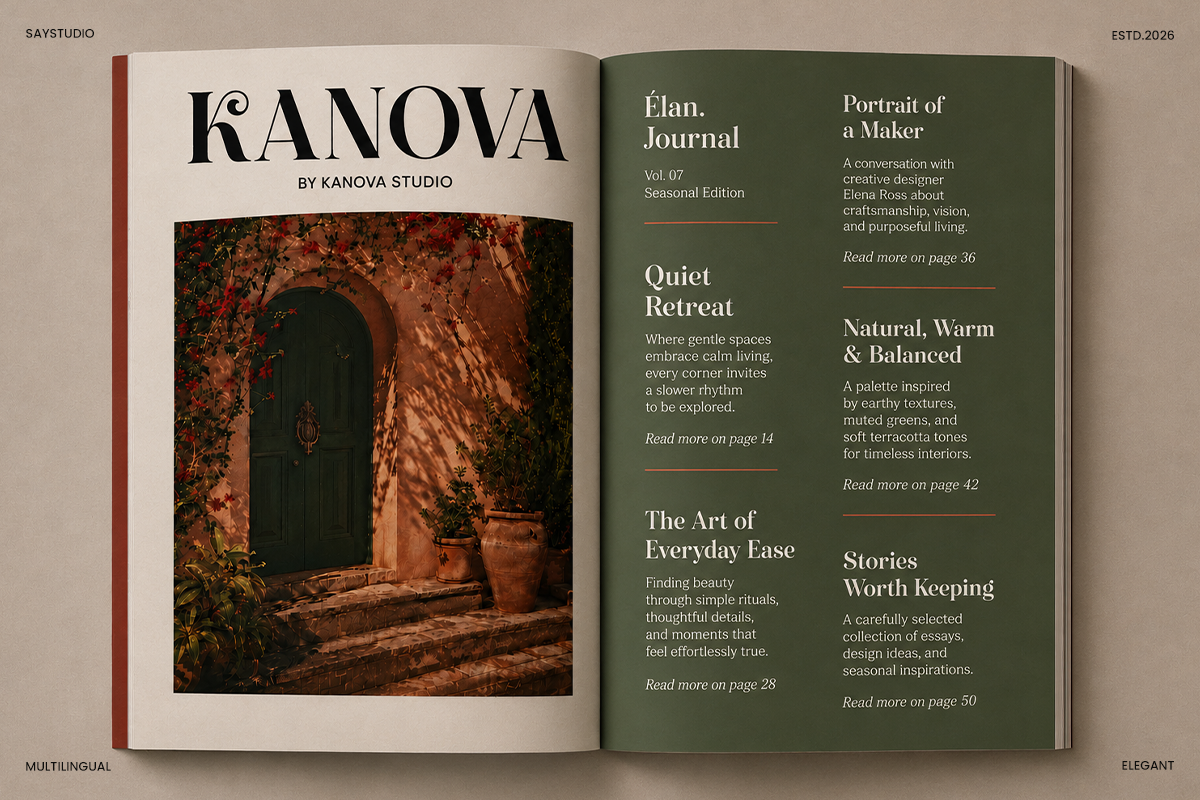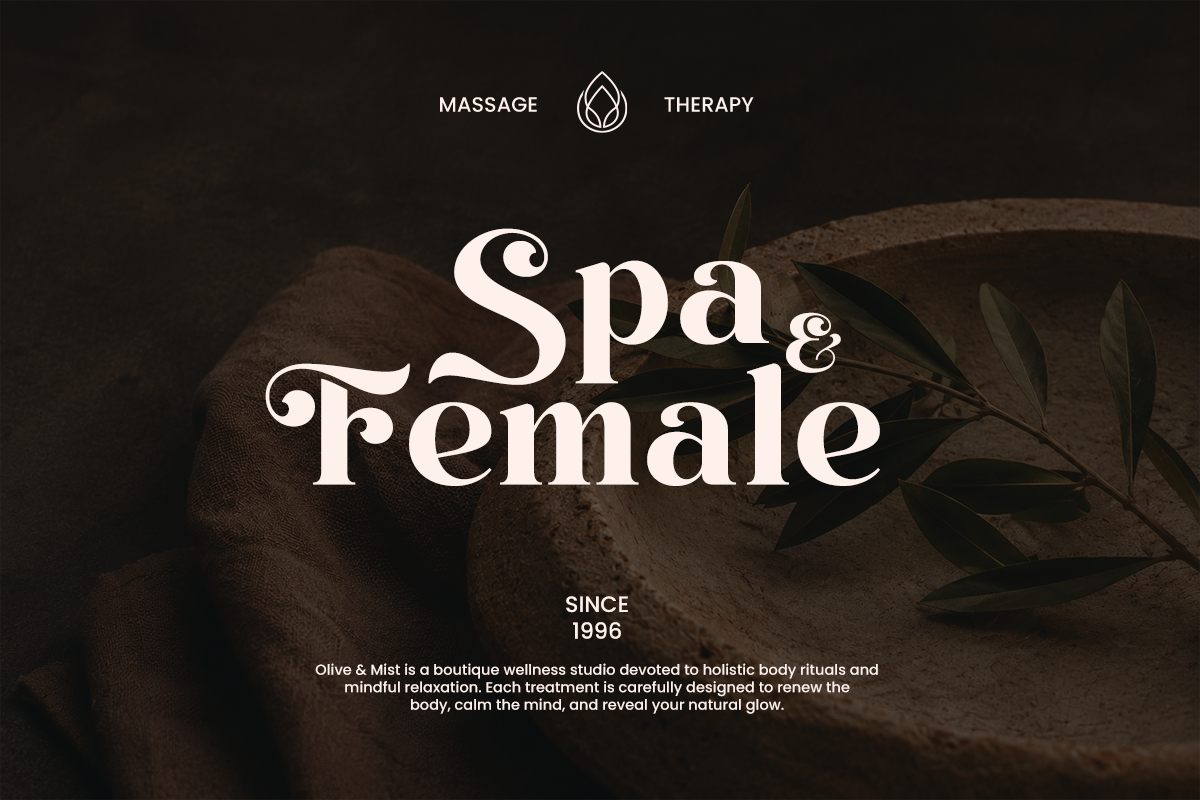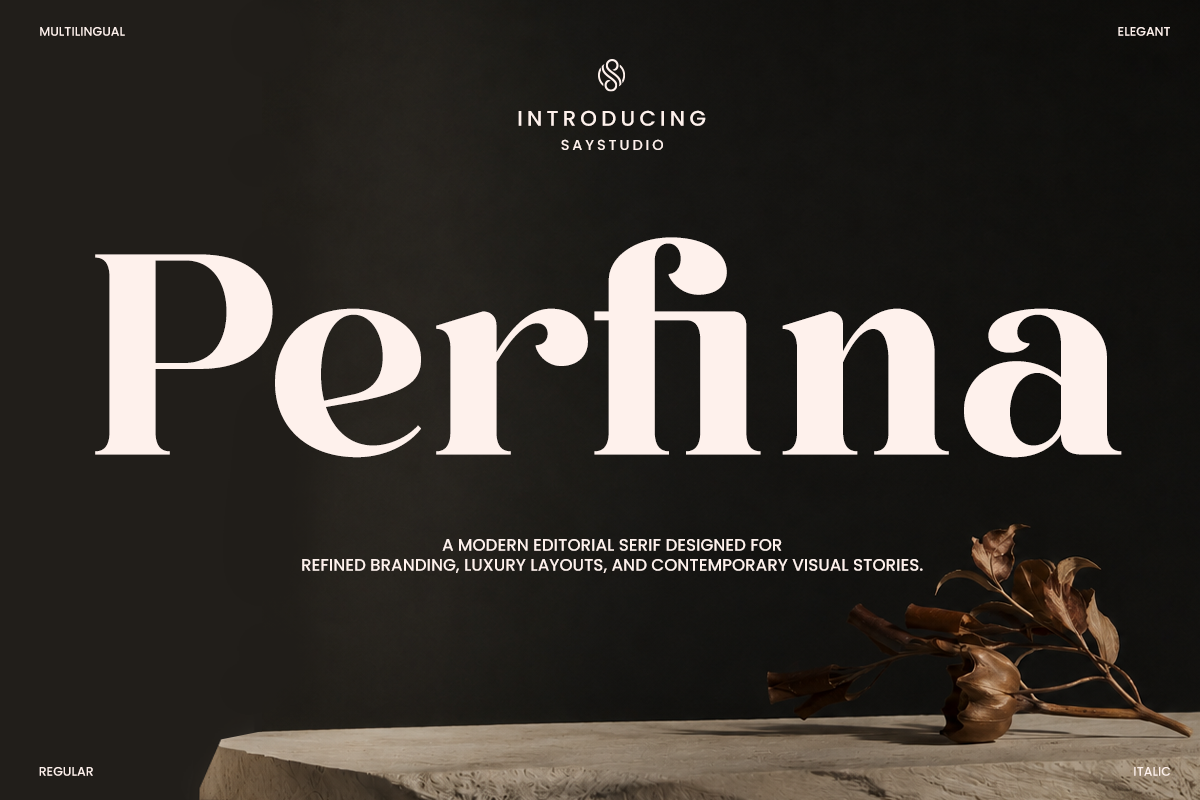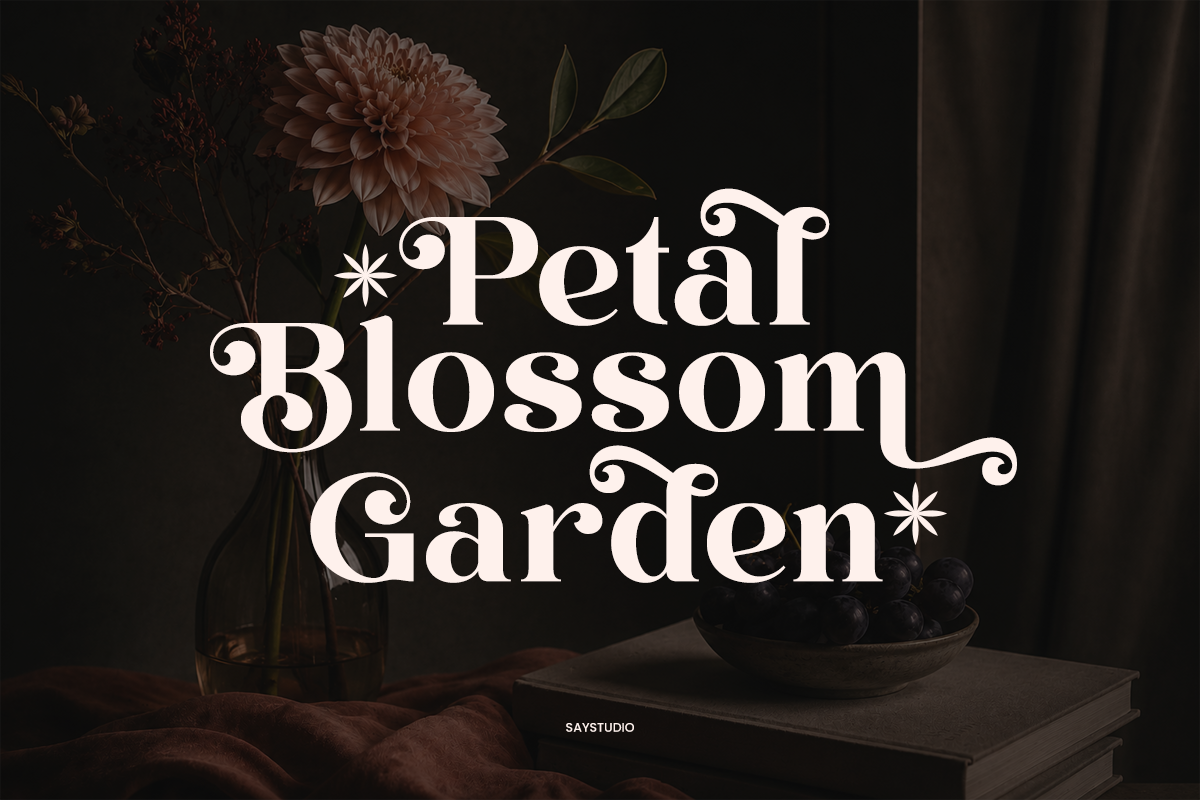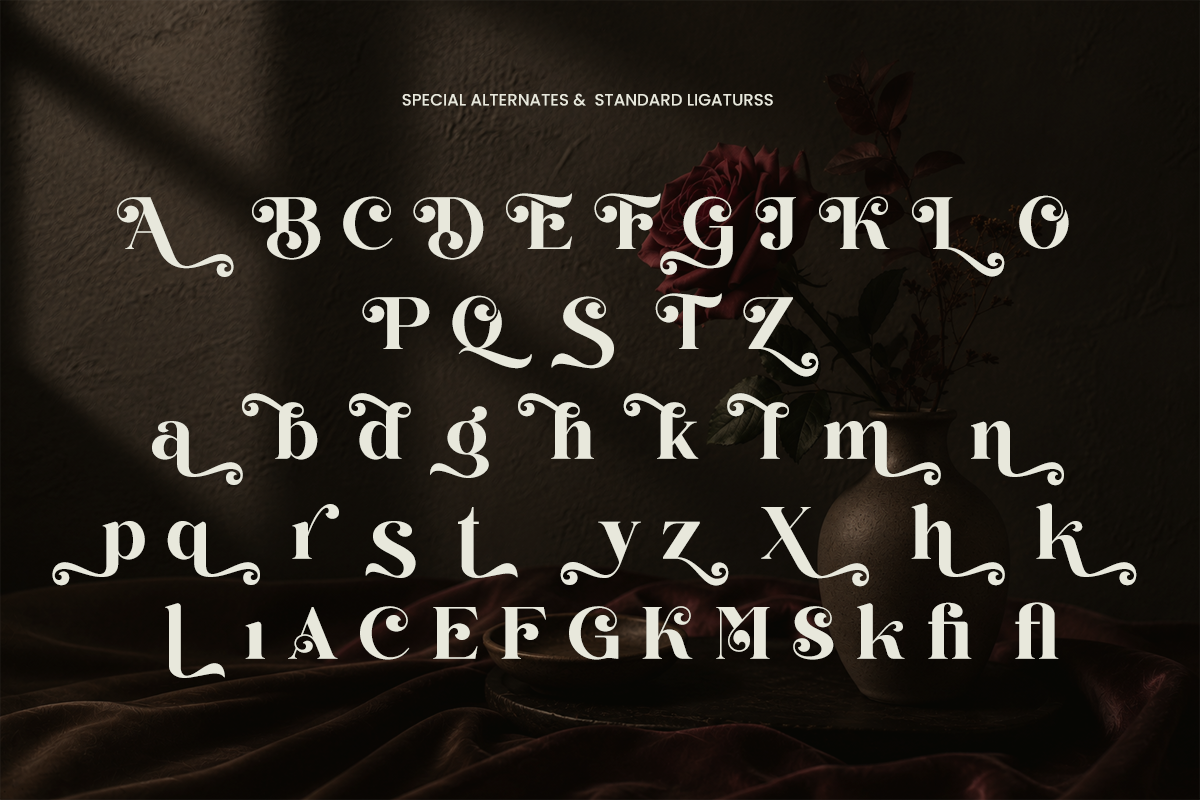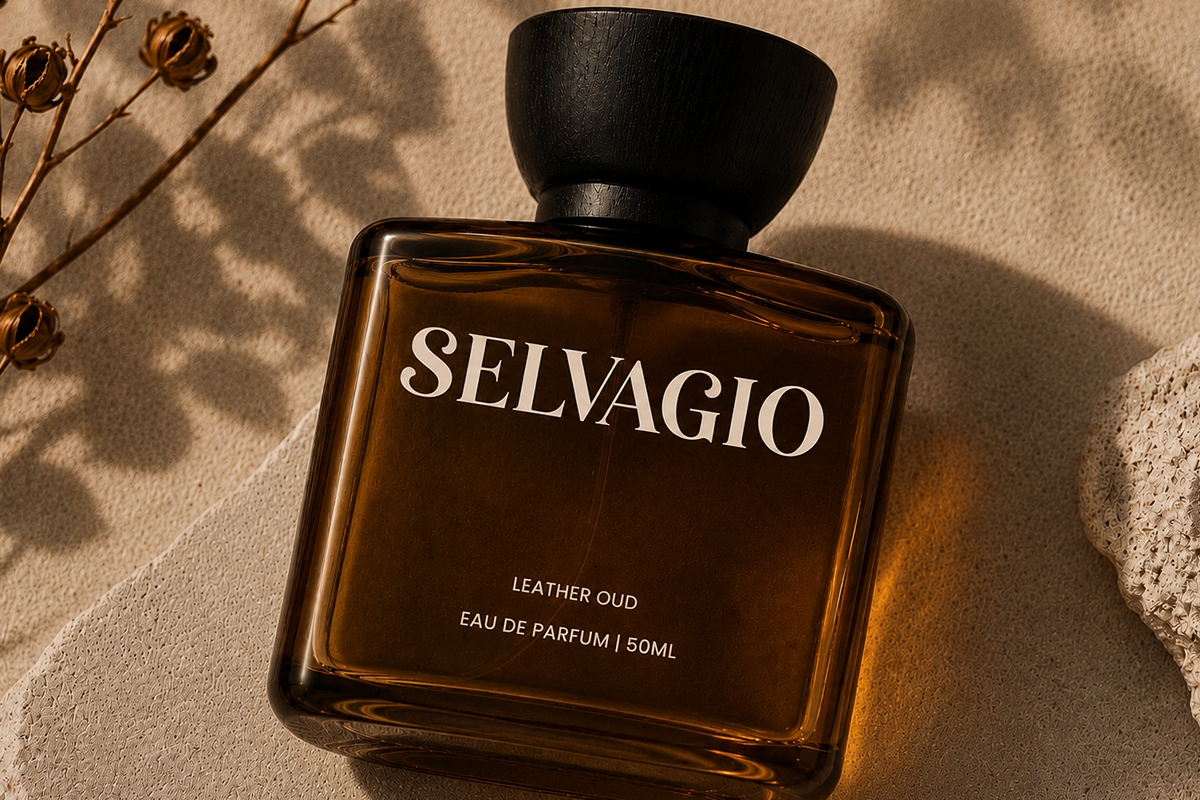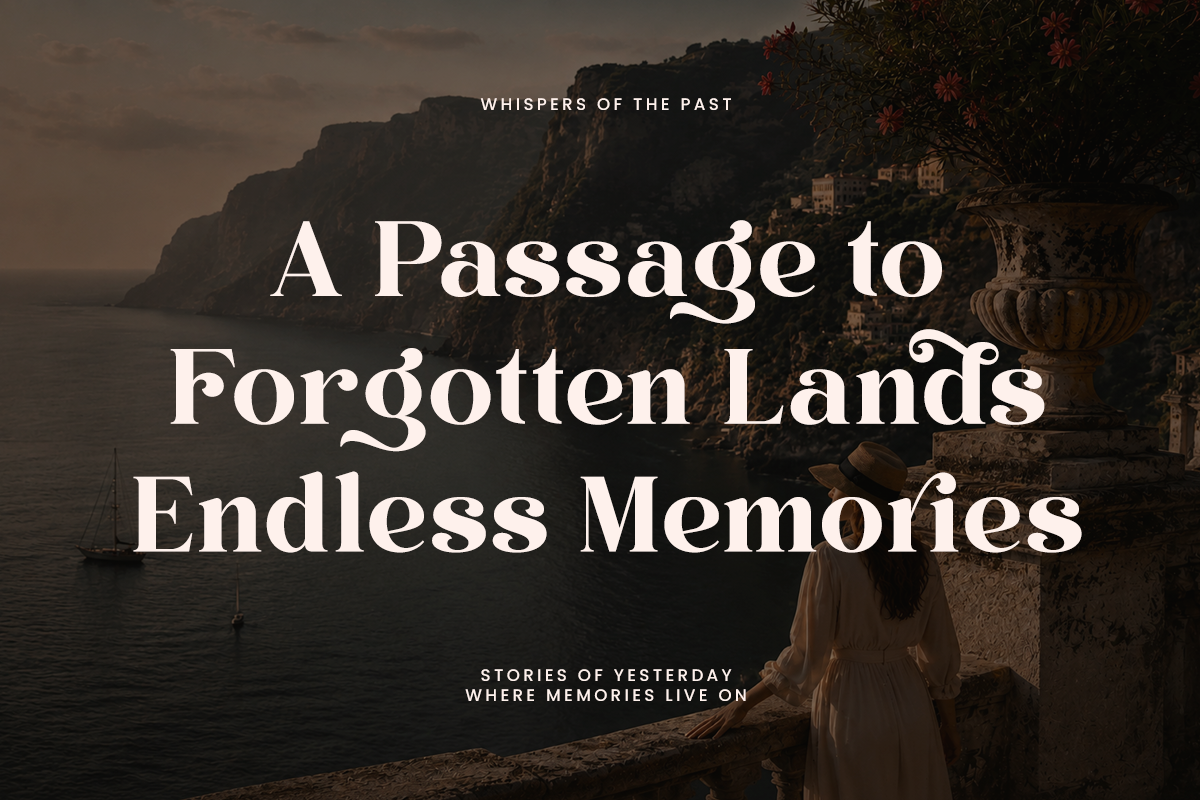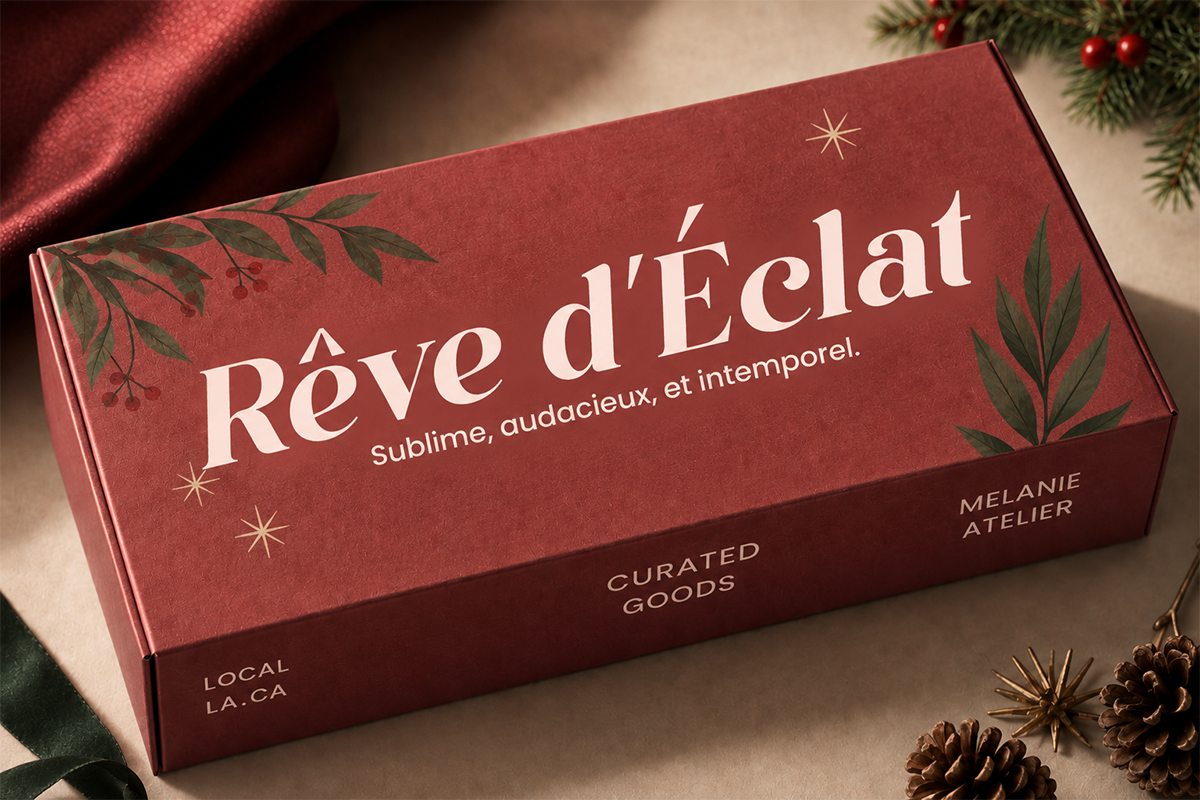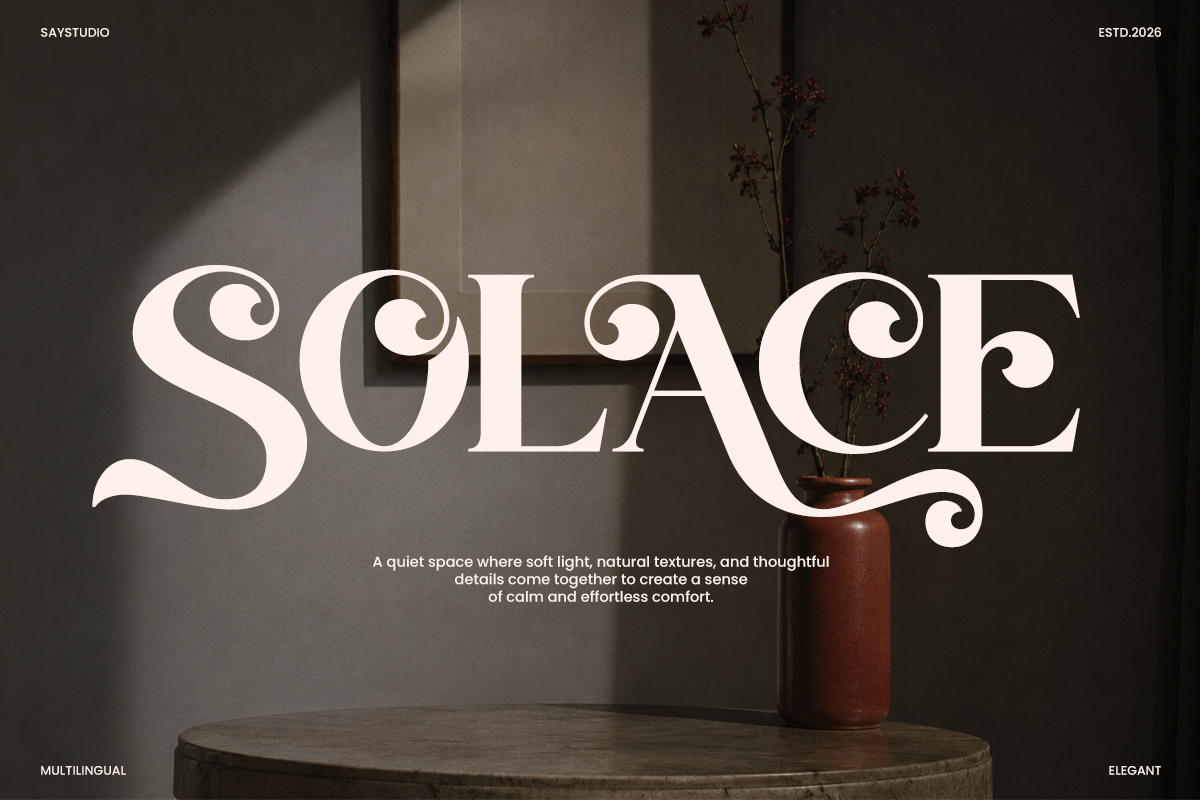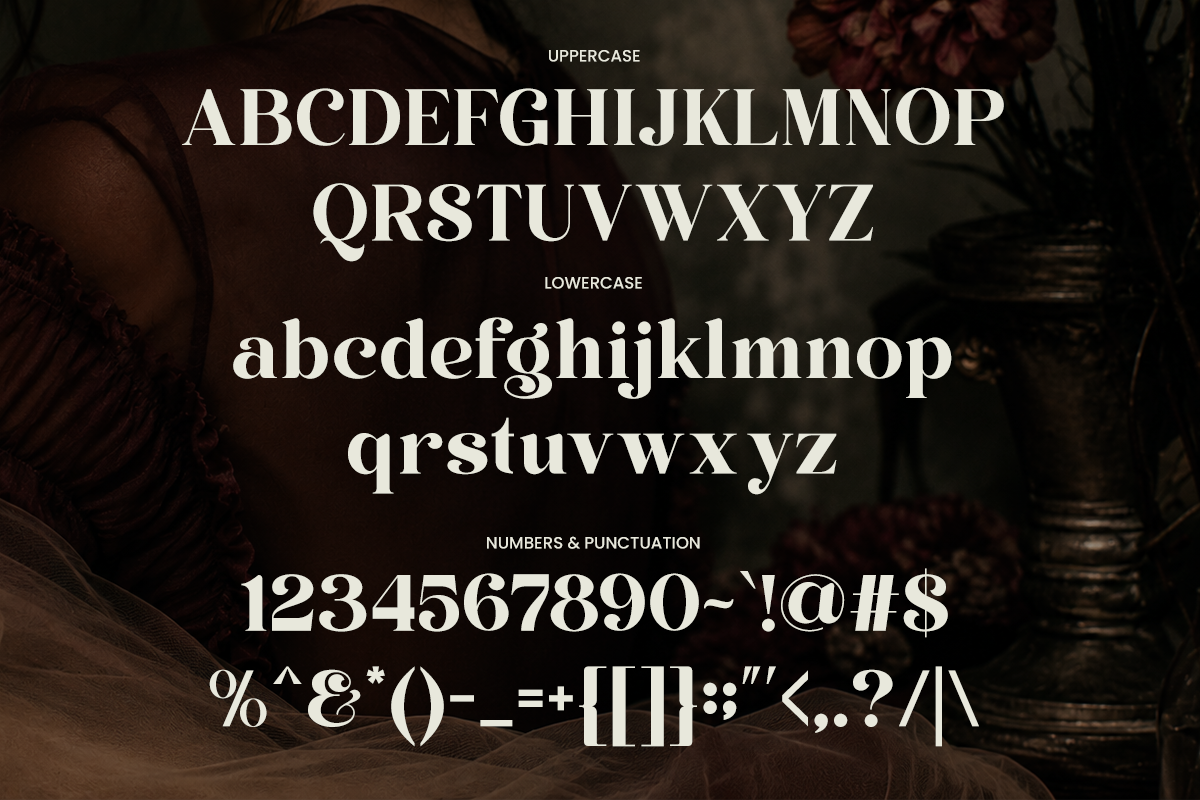
Perfina - Stylish Elegant Serif Font
Perfina is an elegant luxury serif font designed to bring timeless sophistication to every creative project. Featuring refined curves, graceful contrast, and beautiful decorative alternates, Perfina delivers a premium editorial look that feels both classic and contemporary. Its distinctive letterforms make every headline memorable while maintaining exceptional readability.
Perfect for luxury branding, fashion campaigns, cosmetic packaging, perfume labels, wedding invitations, magazine layouts, book covers, social media, logos, and premium marketing materials. Whether you're creating a high-end identity or an elegant editorial design, Perfina adds a touch of prestige and refinement. Making it a versatile choice for professional designers, creative studios, and modern brands seeking an exclusive serif typeface.
Regular and Italic
Stylistic Ligatures
Number, Symbol, and Punctuation